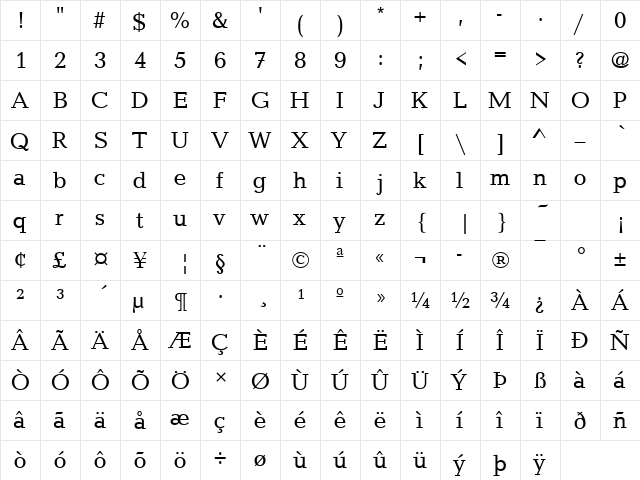
CandidaTReg Regular
CandidaTReg offers clean, dependable letterforms without strong stylistic allegiance, making it a practical choice for designers who need flexibility.